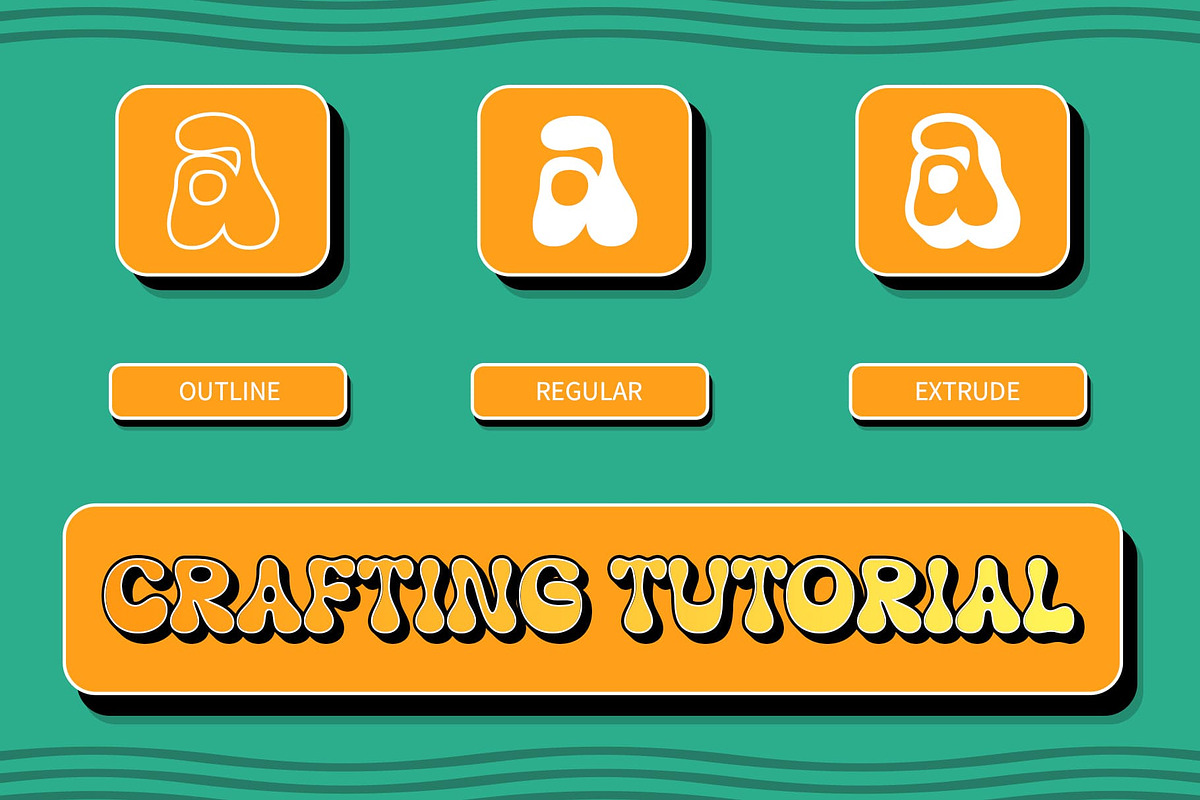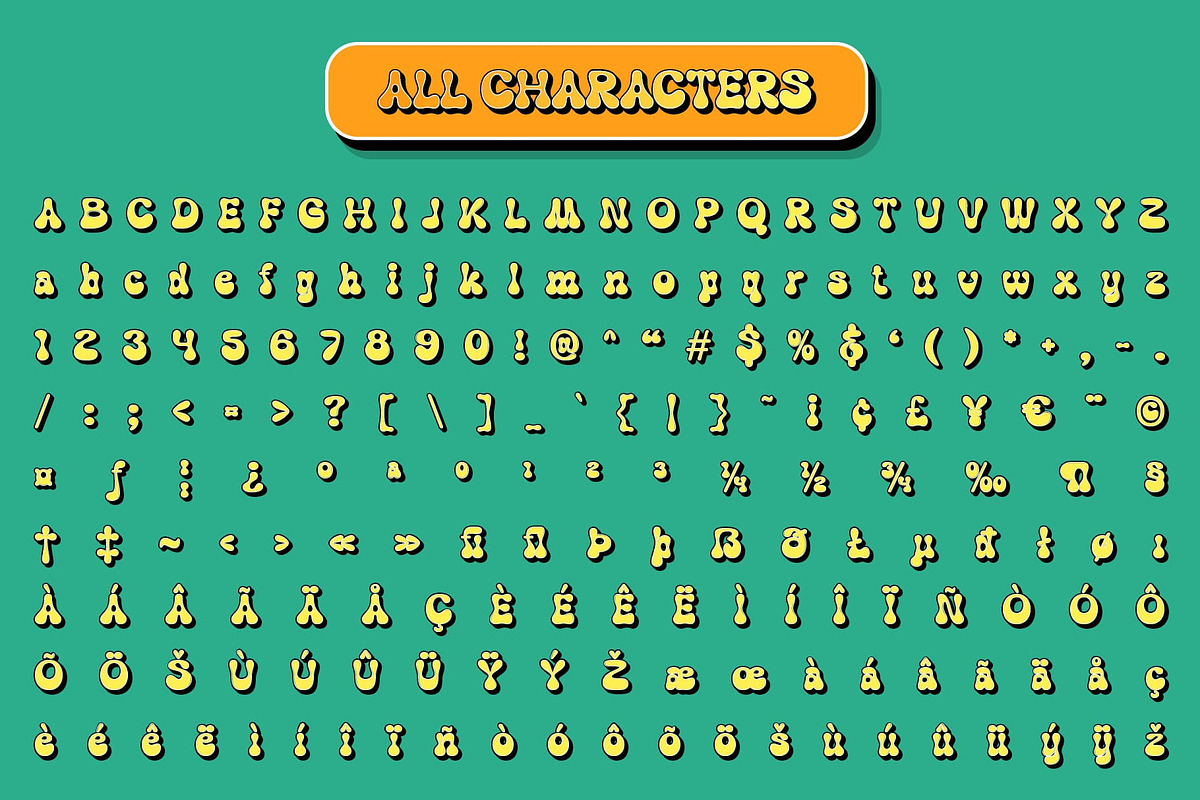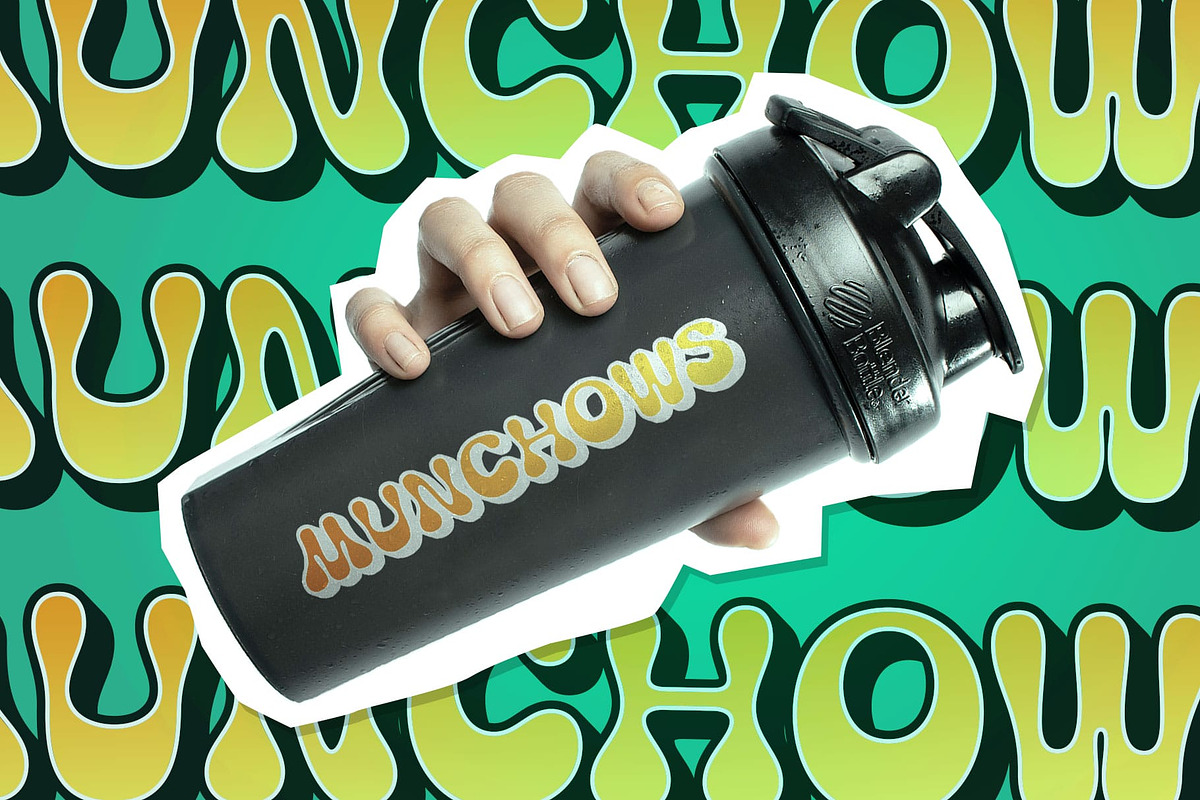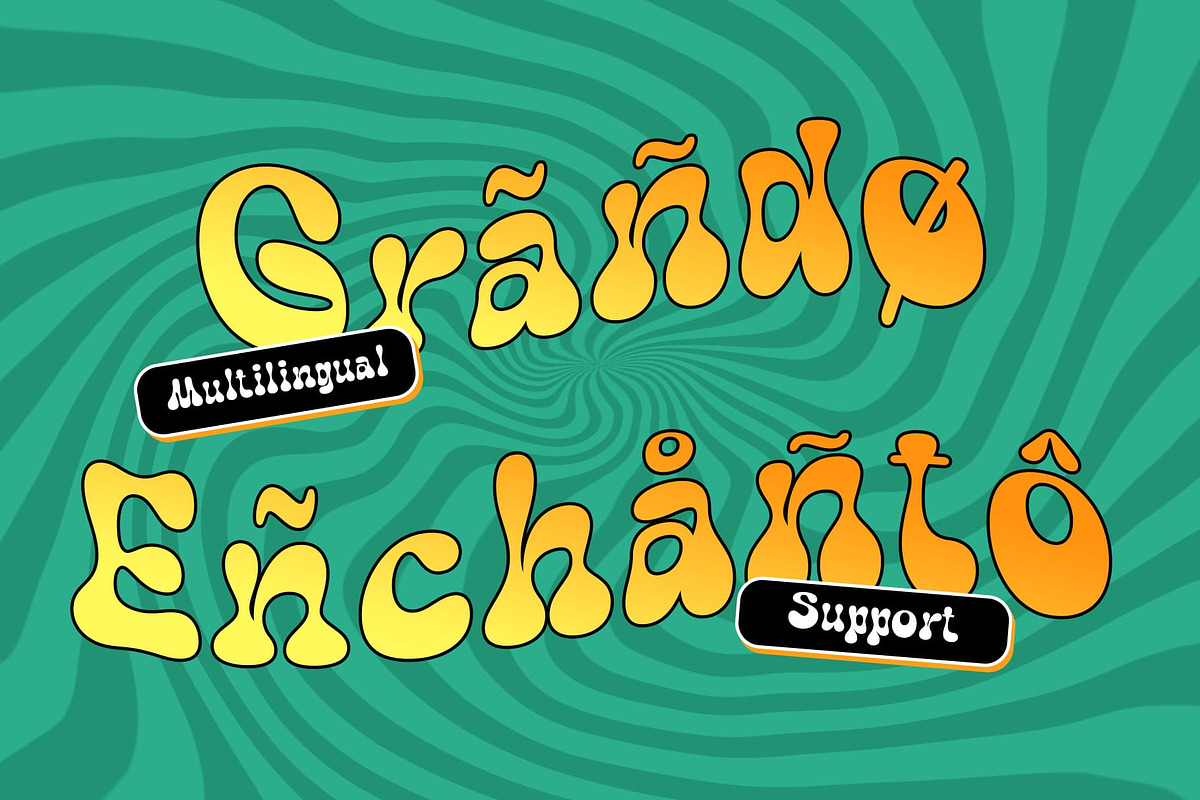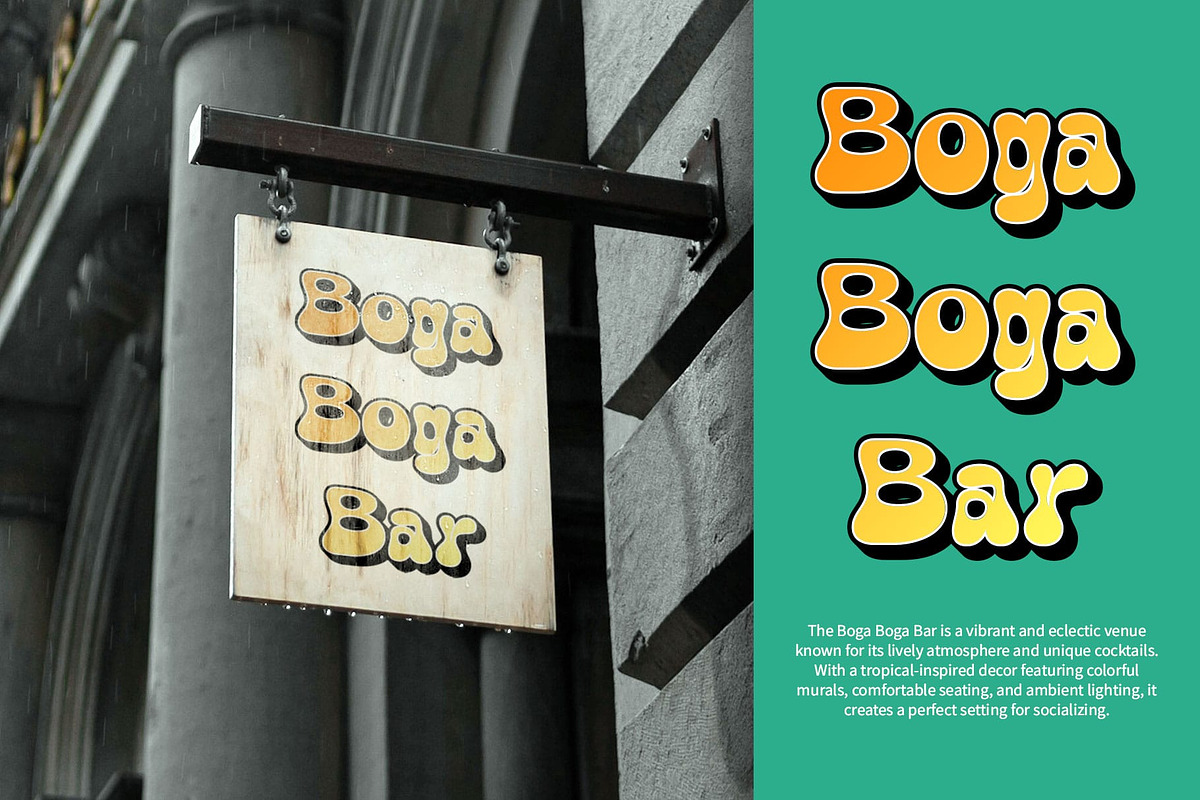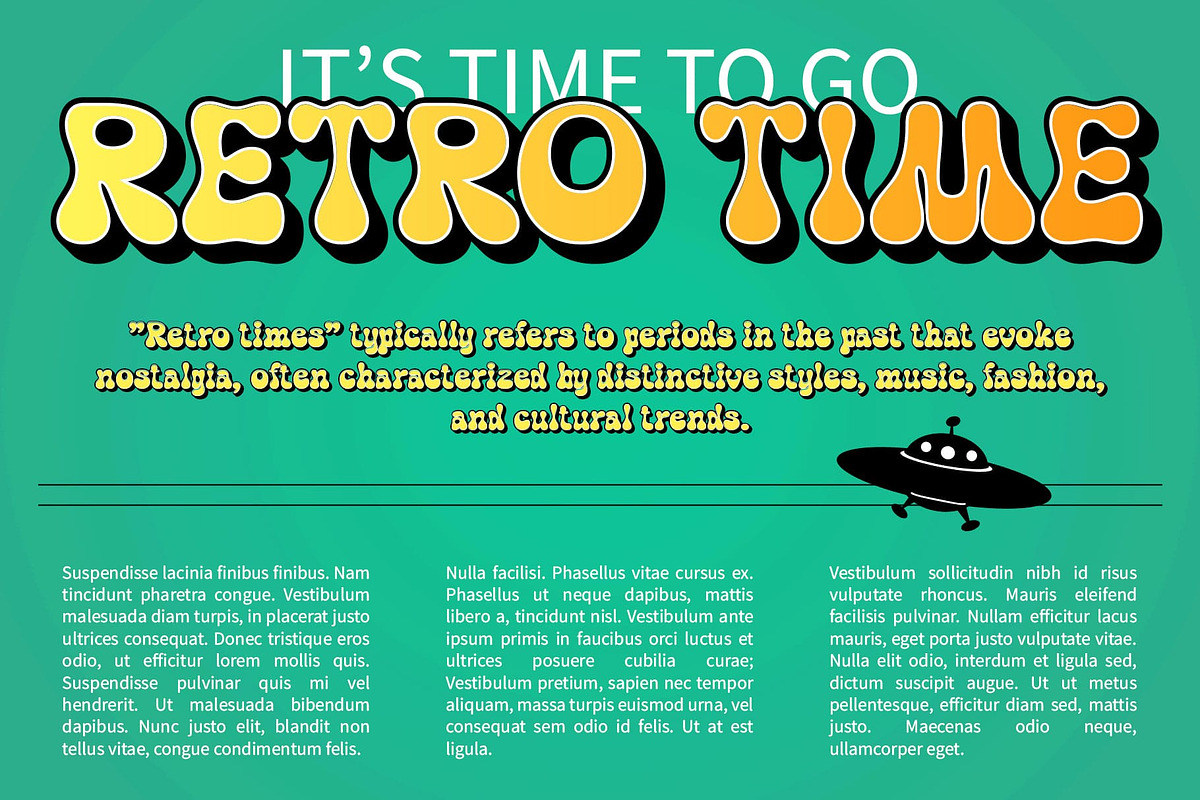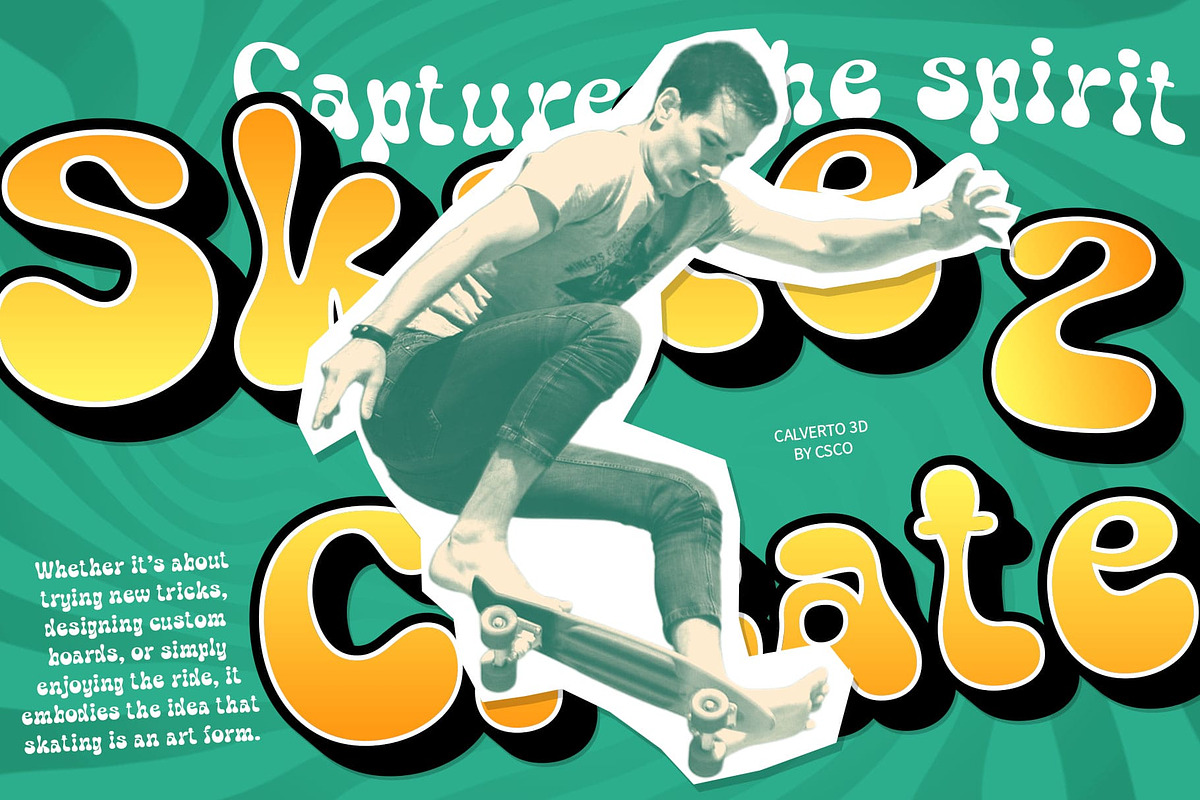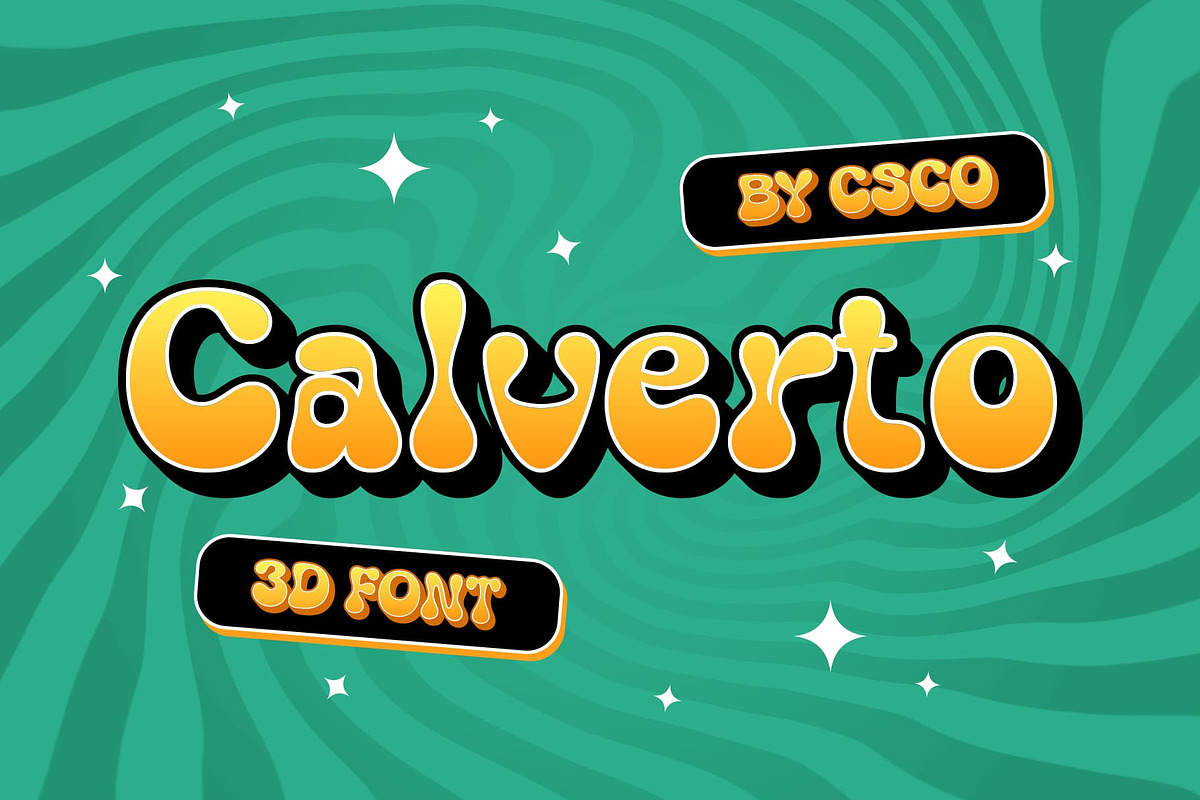
Calverto 3D
Calverto 3D Font: Retro Bubble Font with Funky 3D Flair
Fun and Playful Design Calverto 3D is a retro display font featuring soft, bubbly shapes that exude a cheerful and funky vibe. Its round, smooth letterforms bring a sense of joy and energy to any design, making it the perfect choice for projects that aim to convey fun, creativity, and positivity. The playful nature of its bubble shapes gives it a lighthearted, approachable appeal.
Dynamic 3D Effect Layered with a striking 3D effect, Calverto takes its joyful aesthetic to the next level. The 3D effect adds depth and dimension to the bubbly shapes, making the font more dynamic and visually engaging. This combination creates a lively and bold impression, perfect for designs that need to stand out and capture attention.
Ideal for Creative Projects Calverto 3D is ideal for event posters, album covers, and other creative projects that require a funky, eye-catching design. Its vibrant, retro style is especially suited for designs that highlight energy, fun, and a colorful retro aesthetic. This font is perfect for bringing a dynamic, joyful personality to any creative campaign or branding project.